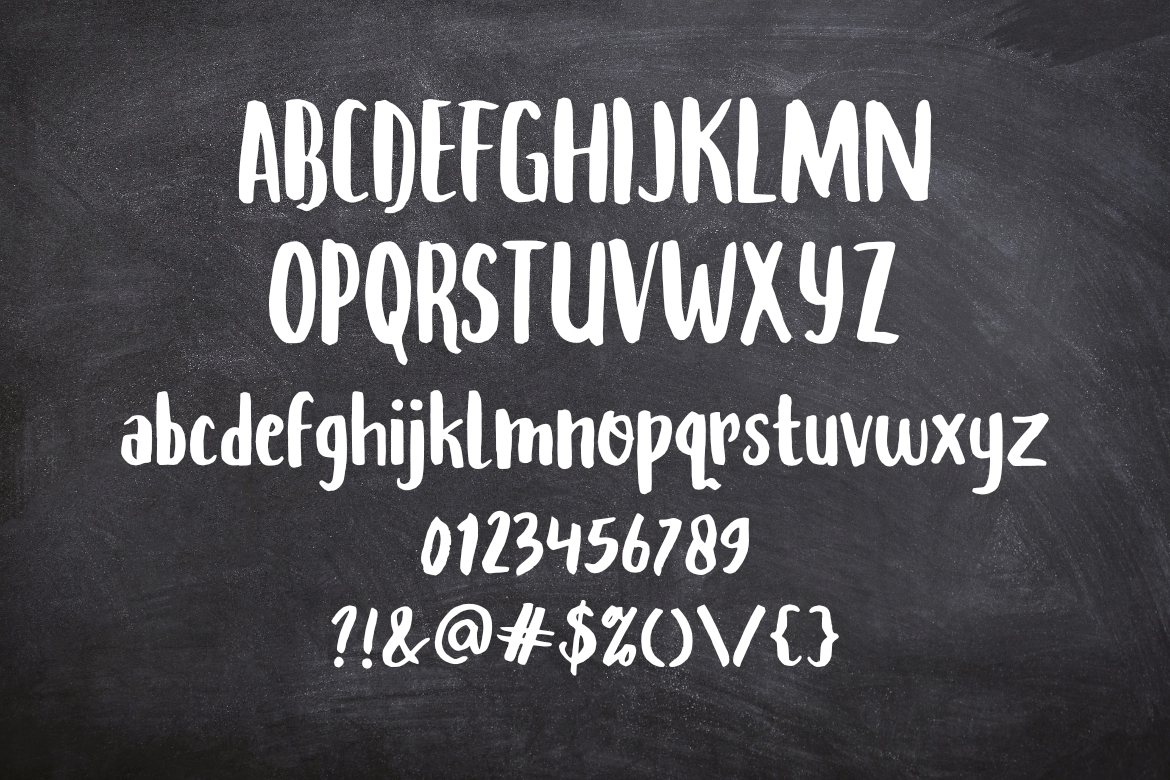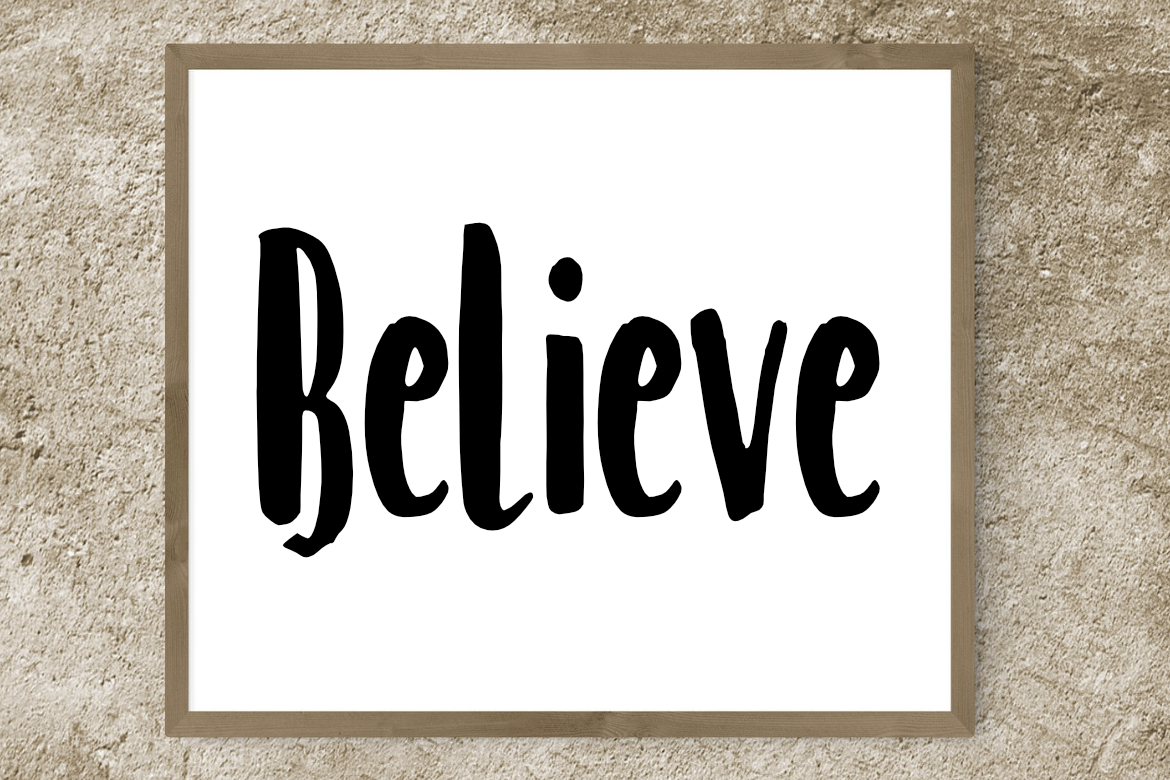
Designing for the Young and Fearless
Do you remember the thrill of creating your first piece of artwork as a child? The joy of experimenting with colors, shapes, and fonts? For designers, capturing that same sense of wonder and creativity in their work is a dream come true. And that’s exactly what the Brave Kid Font is all about – bringing a sense of playfulness and approachability to your designs.
As a friendly font, Brave Kid Font is perfect for children’s themed designs, educational materials, and even edgier projects that need a touch of whimsy. With its bold and versatile style, this font is a valuable asset for designers who want to connect with their audience on a deeper level. Whether you’re creating a children’s book, a website, or a marketing campaign, Brave Kid Font is sure to inspire and delight.
Key Features of Brave Kid Font
- Font Family: Brave Kid Font is a sans-serif font designed specifically for children.
- Unique Characteristics: Features a playful and friendly design, with rounded edges and open shapes, making it perfect for children’s educational materials and entertainment.
Designer Review: Brave Kid Font
The Brave Kid Font is a fun and playful font designed to appeal to a younger audience. I think it ✨ works well for titles, headings, and short texts where you want to convey a sense of energy and optimism.
Here are some strengths of the font:
- Unique and modern design that stands out from more traditional fonts
- Great for creating a bold and adventurous feel
- Works well for digital applications, such as websites, social media, and mobile apps
However, there are also some limitations:
- ⚠️ May be too loud or overpowering for more formal or professional contexts
- ⚠️ Can be difficult to read at smaller font sizes or in dense text blocks
Overall, I think the Brave Kid Font is a great option for designers looking to add some personality and flair to their projects. Just be mindful of the potential limitations and use it thoughtfully to achieve the desired effect.
Tips for Getting the Most Out of Brave Kid Font
For best results, use the Brave Kid font in bold or italic styles to add emphasis to your text.
Pair the Brave Kid font with other playful fonts to create a fun and energetic design.
Use the Brave Kid font in large sizes to make a statement and grab attention.
The Brave Kid font is perfect for:
Children’s educational materials, such as worksheets, coloring books, and activity sheets.
Playful marketing materials, such as social media posts, flyers, and brochures.
Fun and creative projects, such as party invitations, gift tags
Alternatives to Brave Kid Font
Great Vibes is a modern, handwritten font that works well for titles, headings, and quotes. It’s perfect for adding a touch of elegance and sophistication to your designs. Unlike Brave Kid Font, Great Vibes is more refined and less playful, making it suitable for a wider range of applications.
Ostrich Sans is a fun, informal font that’s great for titles, headings, and body text. It’s similar to Brave Kid Font in its playful nature, but it’s more versatile and can be used in a variety of contexts. Ostrich Sans is a good choice when you need a font that’s both fun and easy to read.
Lato is a modern sans-serif font that’s highly legible and versatile. It’s a good choice when you need a font that’s easy to read and can be used in a variety of contexts, from body text to titles and headings. Unlike Brave Kid Font, Lato is more formal and less playful, making it suitable for a wider range of applications.
Playfair Display is an elegant, high-end font that’s perfect for titles, headings, and quotes. It’s similar to Brave Kid Font in its luxurious feel, but it’s more refined and less playful. Playfair Display is a good choice when you need a font that’s both elegant and sophisticated.
The recommended font size for the Brave Kid Font is between 12-24 points, depending on the design context and intended audience. A line height of 1.2-1.5 times the font size is also recommended to ensure optimal readability.
Q: Can I customize the Brave Kid Font to fit my design needs?